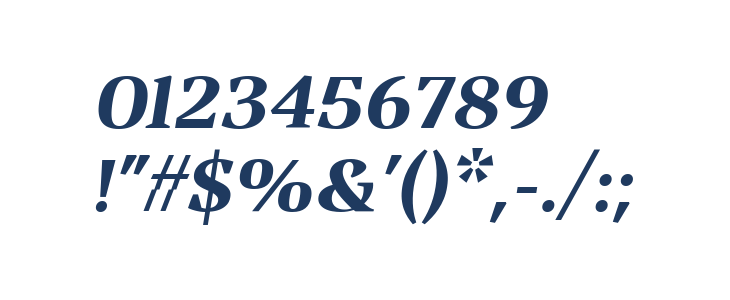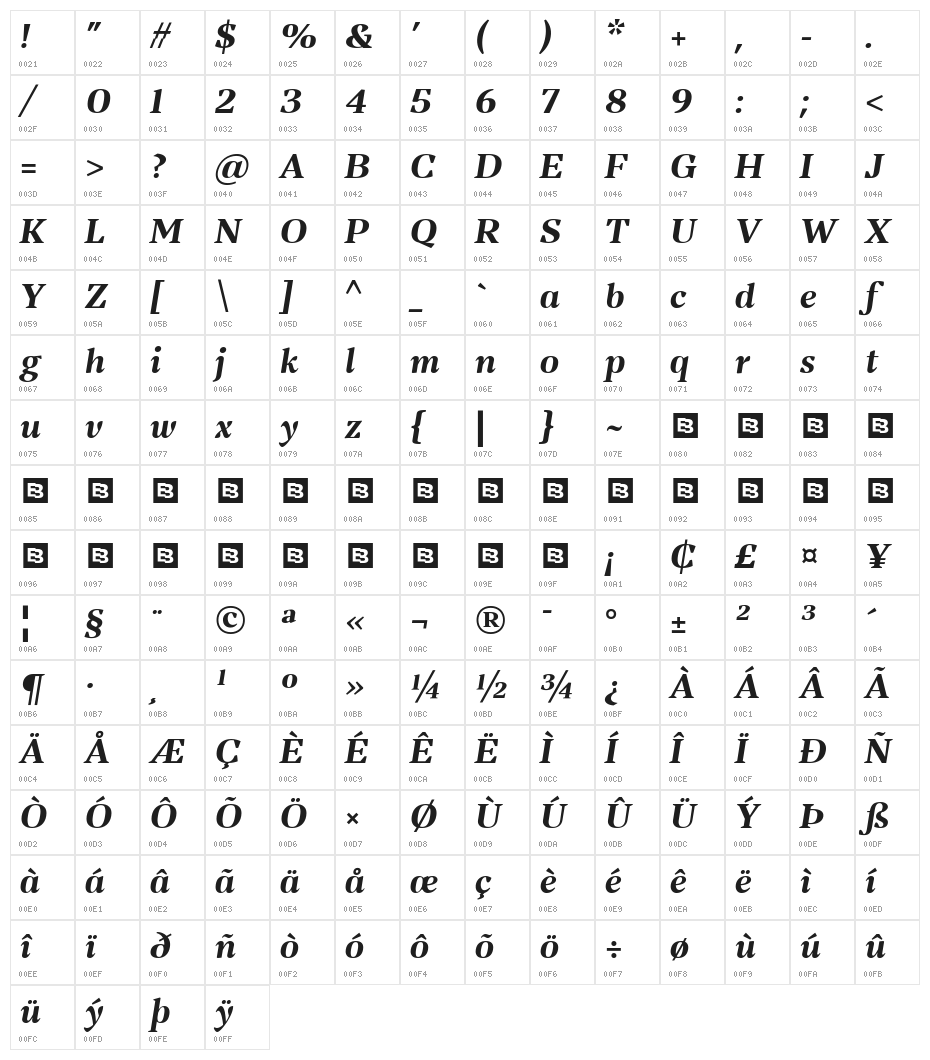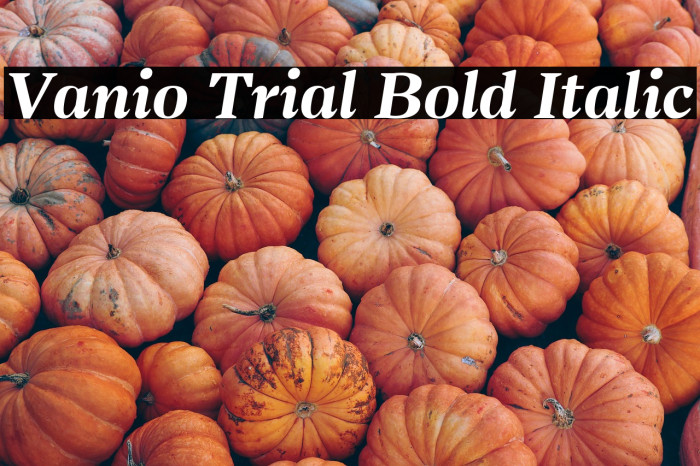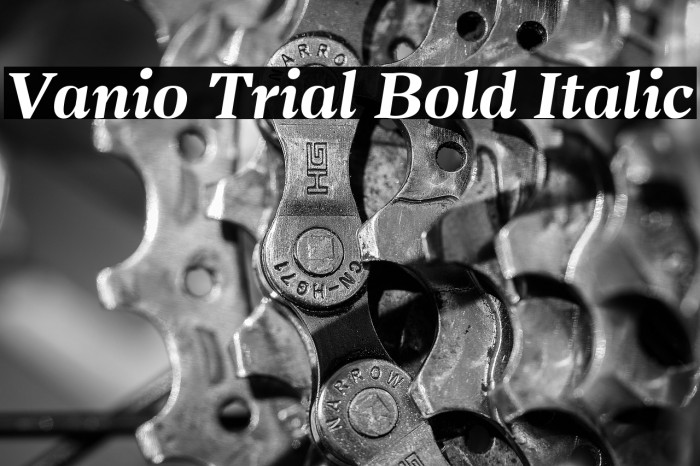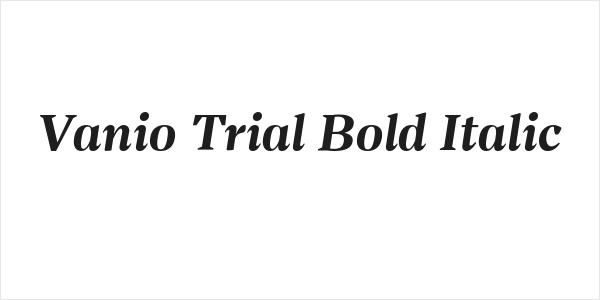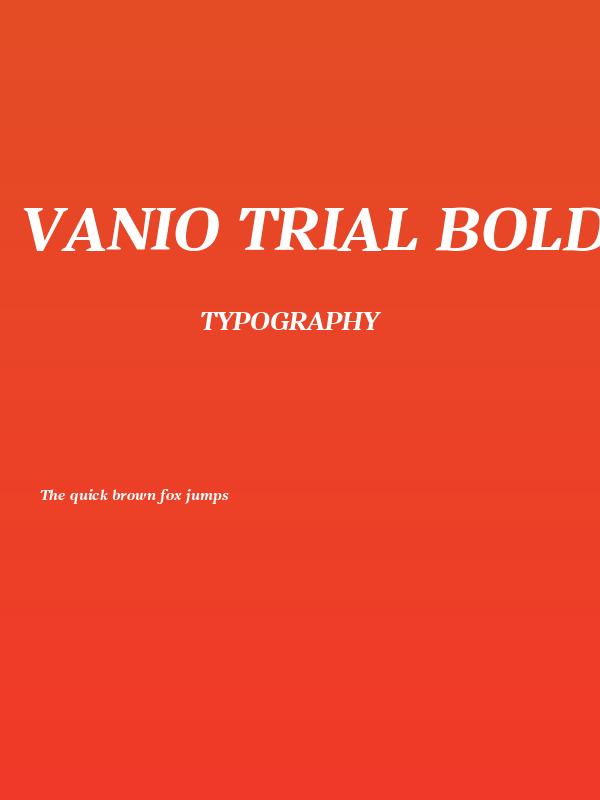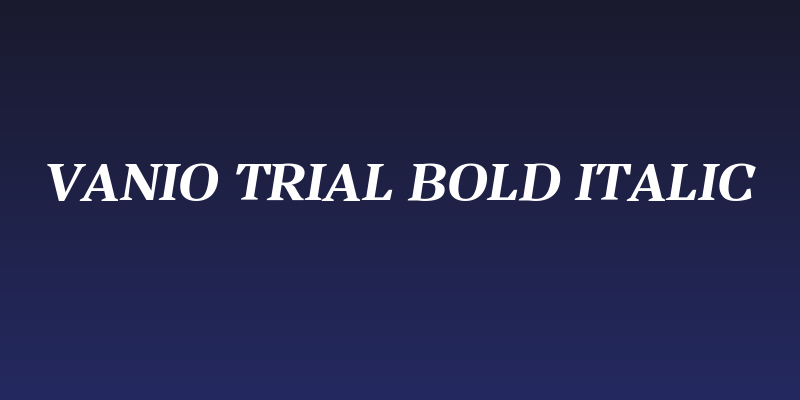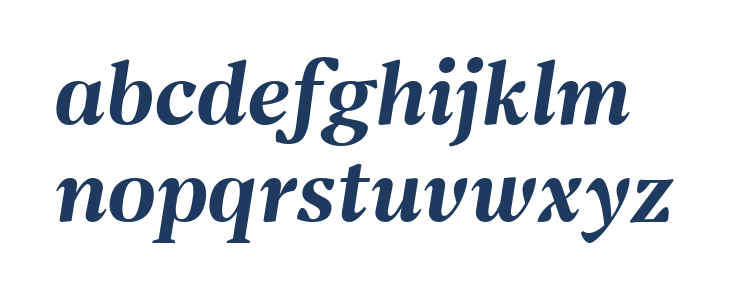
This font exhibits a bold and dynamic presence with its italicized form, creating a sense of movement and elegance. The strokes are thick and consistent, providing a strong visual impact. The serifs are pronounced, adding a touch of classic sophistication. The overall design is balanced, with a slight slant that enhances readability while maintaining a stylish appearance. The characters are well-spaced, ensuring clarity and legibility even at smaller sizes. This font is versatile, suitable for both digital and print media, and can effectively convey a sense of authority and professionalism.
Overall StyleClassic
Proposed ProjectsIdeal for branding, editorial design, book covers, and high-impact headlines.